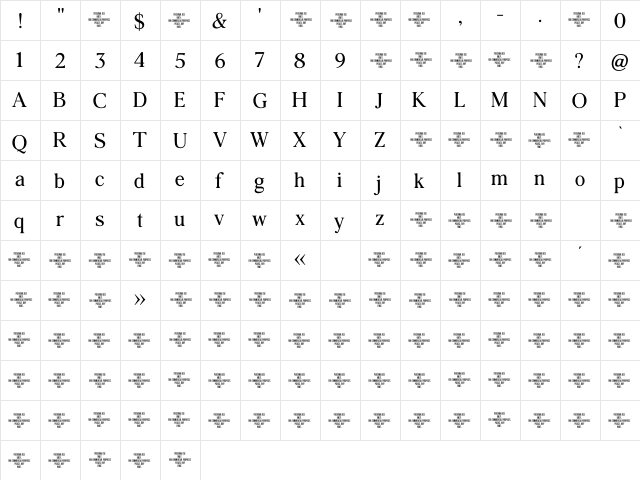
Agatho Narrow
| Designer | Andrii Shevchyk |
Design Context for Agatho Typeface
Agatho takes a measured approach to typography — its balanced proportions and neutral character make it a reliable workhorse for both digital and print work. The condensed width makes it efficient for tight spaces without sacrificing legibility.